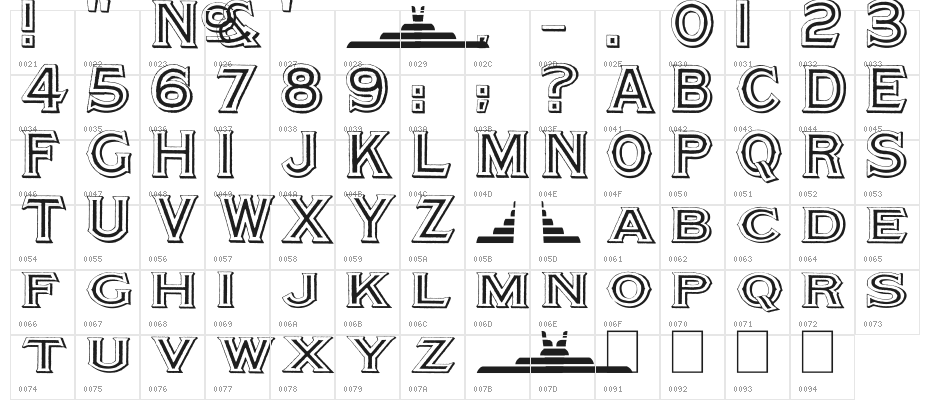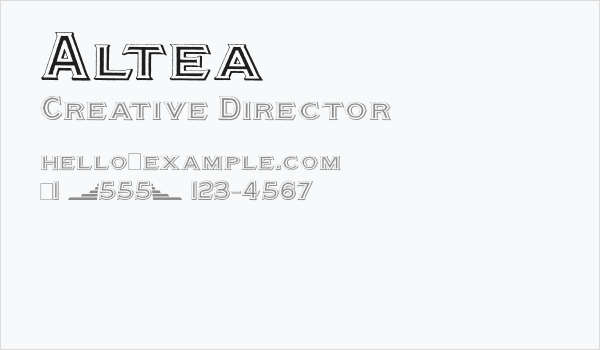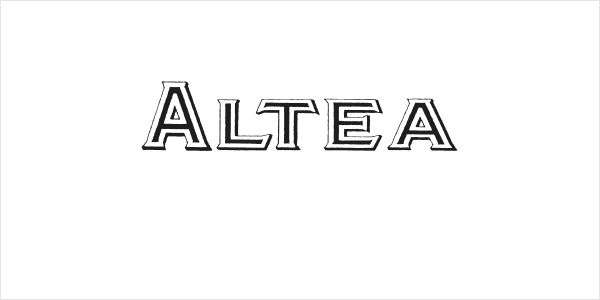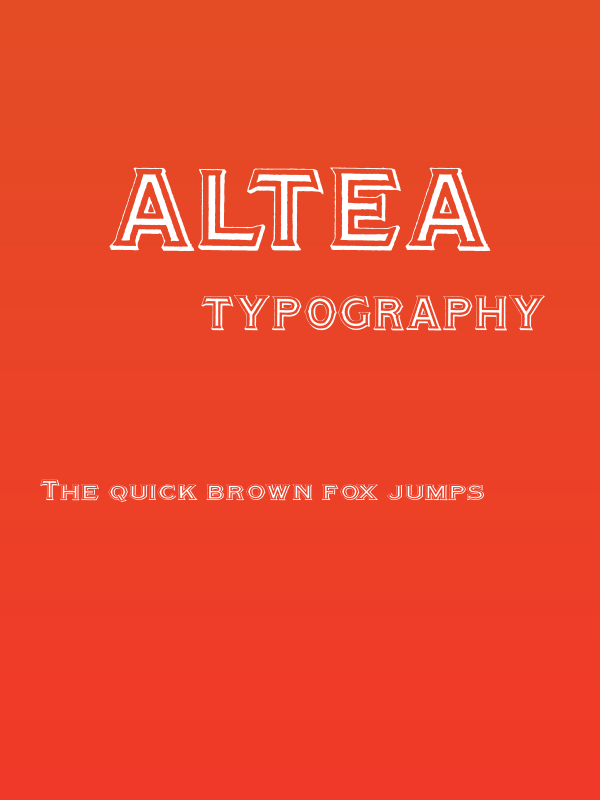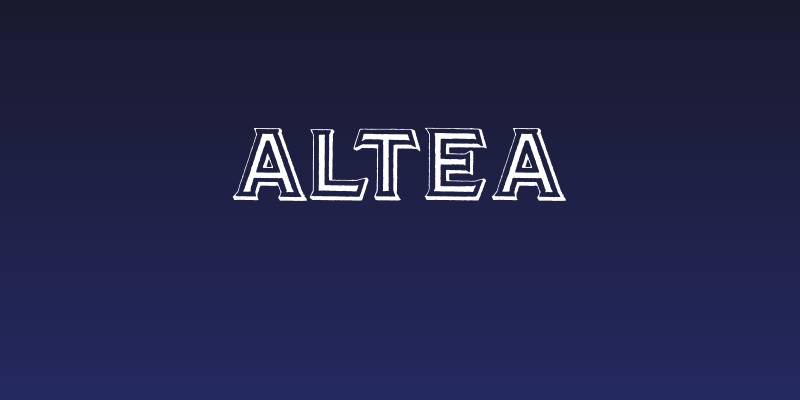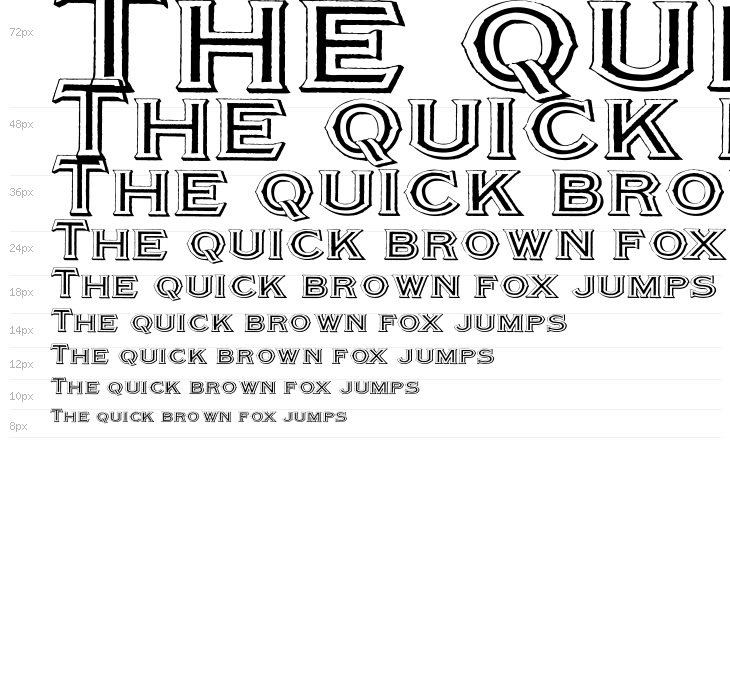
Altea Font
Altea Description
This font features a bold and striking design with a three-dimensional effect, created by its double-line structure. The uppercase letters are prominent and commanding, making them ideal for attention-grabbing headlines. The lowercase letters maintain the same bold style, ensuring consistency throughout. Numbers are equally bold and clear, suitable for impactful numeric displays. The special characters are designed with the same attention to detail, providing a cohesive look across all text elements. This font's unique style is both modern and slightly retro, making it versatile for various design projects.
| Proposed Projects | Ideal for posters, logos, branding, and any project requiring a bold statement. |